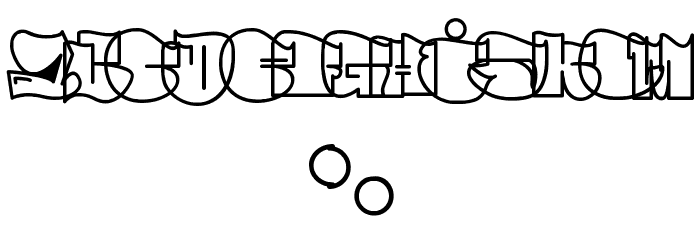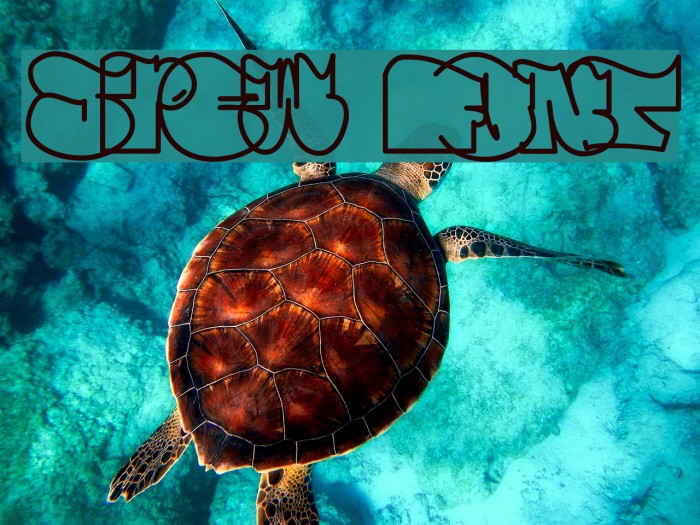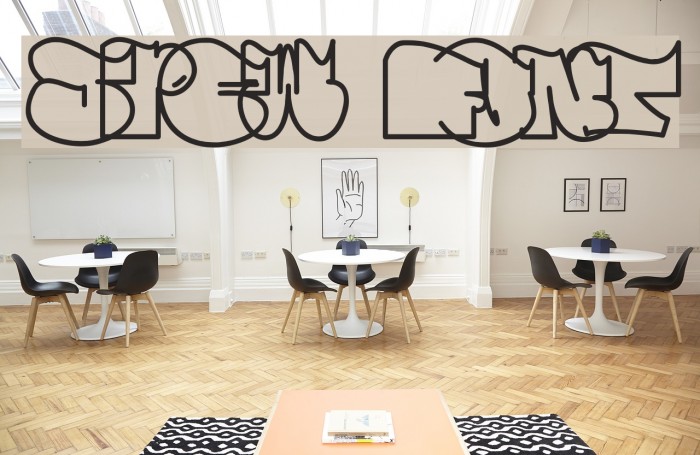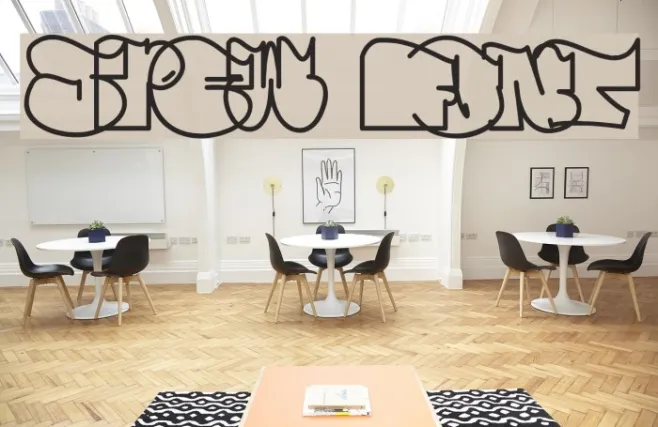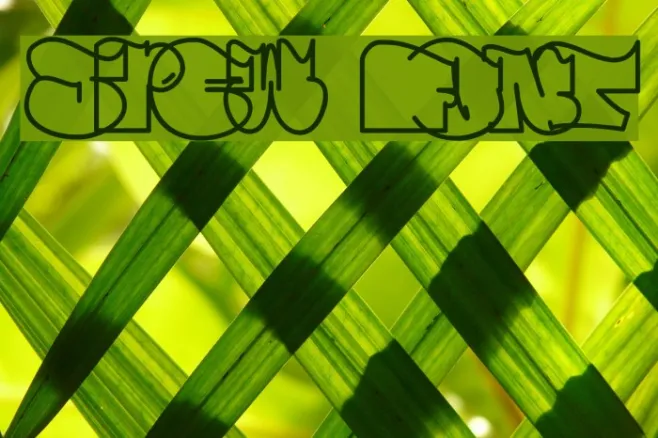
SPEW Font
This font features a bold, graffiti-inspired style with exaggerated curves and sharp angles. The characters are heavily stylized, giving them a unique, urban feel. The uppercase and lowercase letters maintain a consistent design, with a strong emphasis on artistic flair. The numbers and special characters follow the same aesthetic, ensuring a cohesive look across all elements. This font is perfect for projects that require a bold statement and a touch of street art influence.
A bold, graffiti-inspired font with exaggerated curves and sharp angles.
- Proposed Projects: Ideal for street art designs, urban-themed posters, music album covers, and edgy branding projects.
- Overall Style: Urban, Graffiti